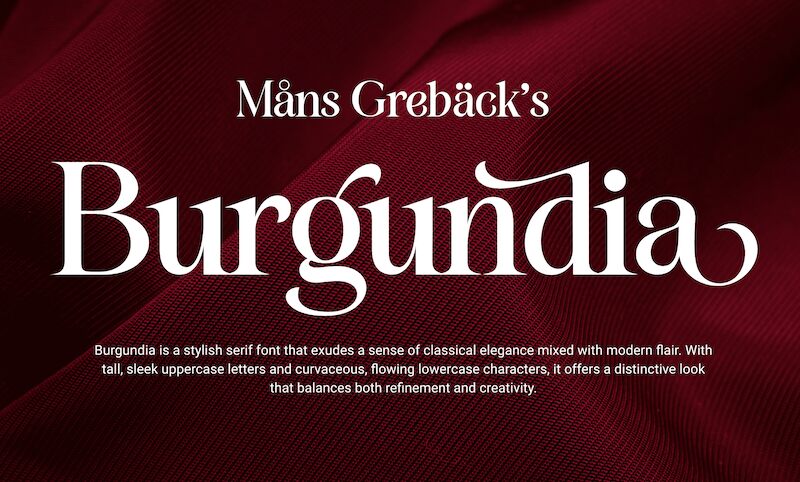
Burgundia font
Burgundia
Burgundia is a stylish serif font that exudes a sense of classical elegance mixed with modern flair.
With tall, sleek uppercase letters and curvaceous, flowing lowercase characters, it offers a distinctive look that balances both refinement and creativity.